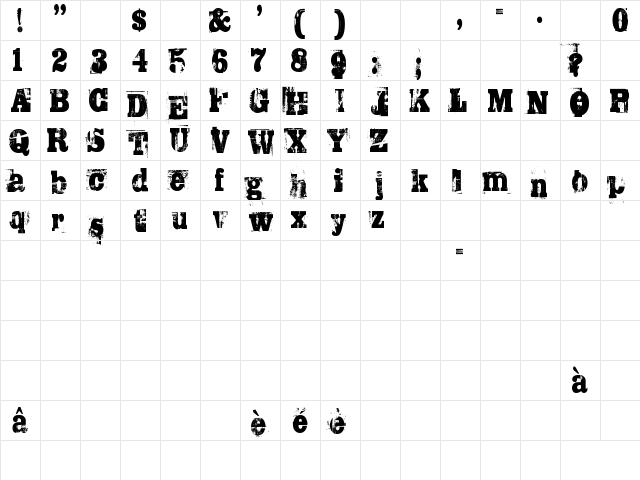
TRASHED Regular
Design Context for TRASHED Typeface
TRASHED is a composed and adaptable typeface that performs quietly and consistently across a wide range of design contexts.
Pro Tip: Use TRASHED in both headline and body roles to test its range before committing to a single application.